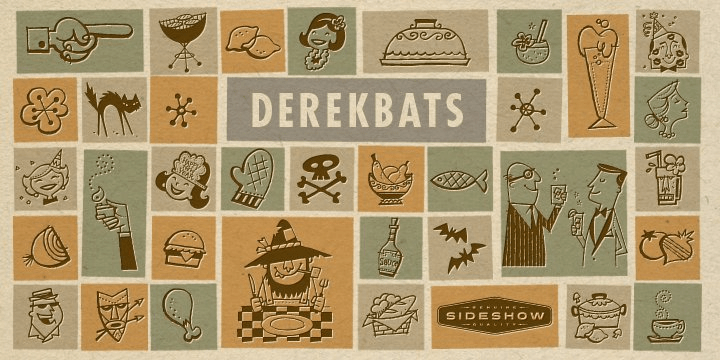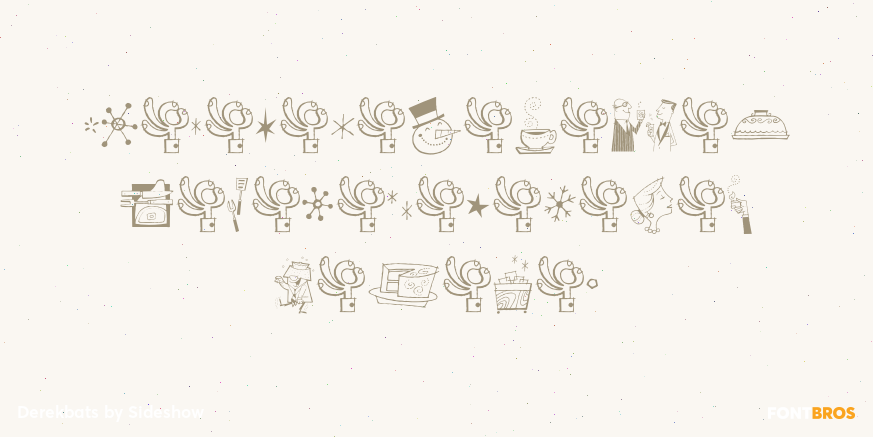
Derekbats
Font Family by Sideshow
Dig this cats n' kittens ... A whole heapin' helpin' of tasty art bits from Tiki retro artist Derek Yaniger! Use these spots to hop up your next birthday, cocktail, Hallowe'en, or birthday invite ... to name just a fewsville. This set has got it all, and then some! The design possibilities are endless, man. Get yours today and live it up like no tomorrow style!